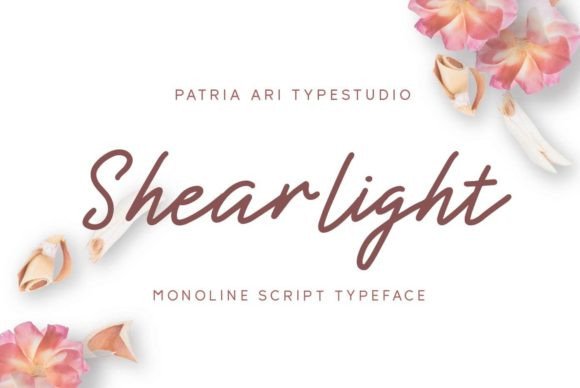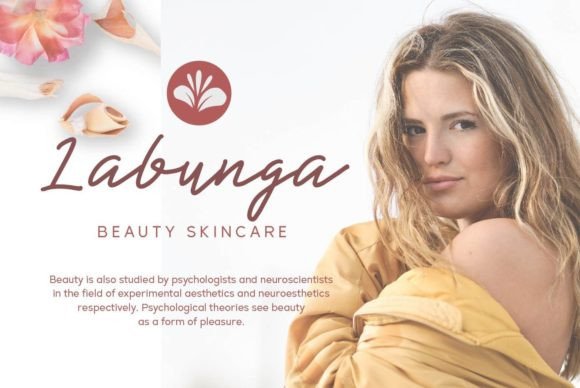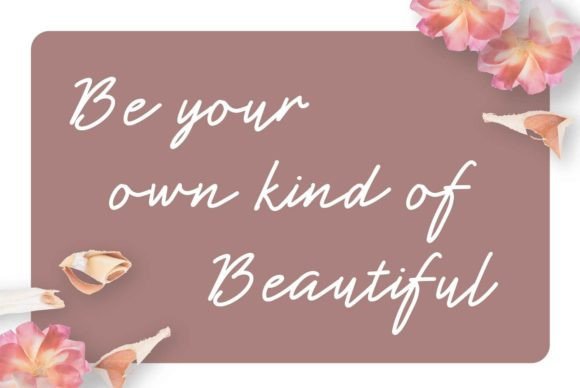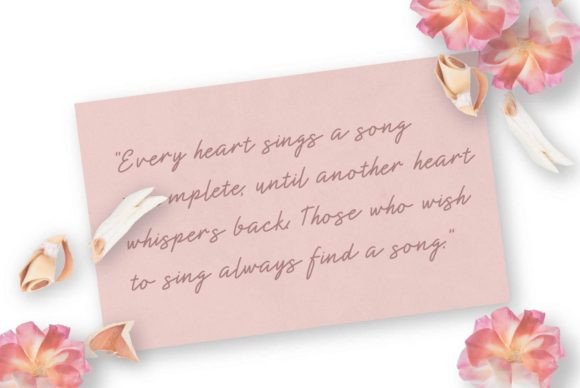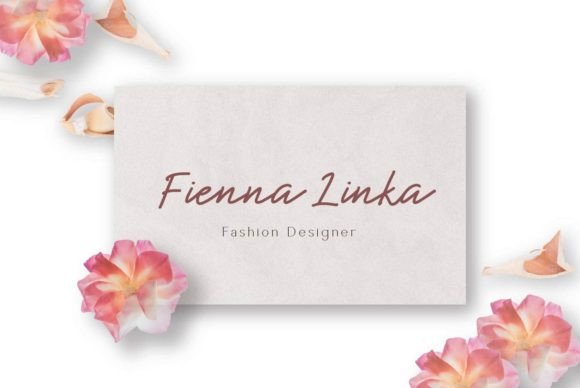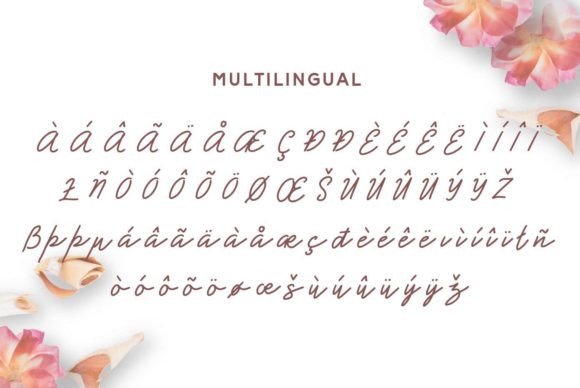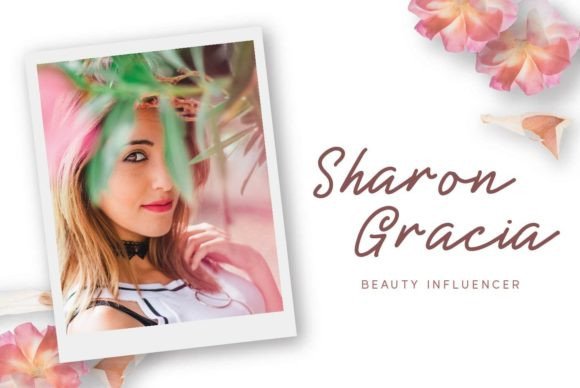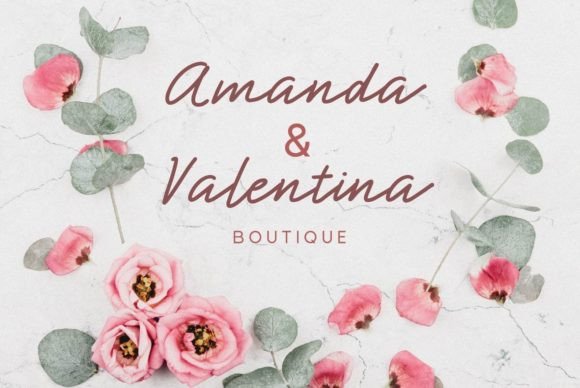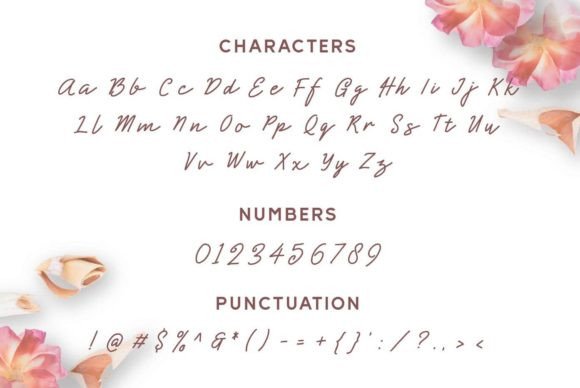
Shearlight Font
About Shearlight Font
“Shearlight” is a delicate and well-rounded handwritten font crafted to bring an authentic touch to crafty projects. This font is an excellent choice for a variety of creative endeavors, offering a delicate and genuine typography style. Whether you’re working on wedding invitations, birthday cards, personal branding, elegant logos, or any other creative project, “Shearlight” is designed to make your designs stand out with its delicate and well-rounded charm.
The handwritten and well-rounded nature of “Shearlight” makes it well-suited for projects that demand an authentic and personalized feel. The font’s delicate style adds an elegant touch to your text, making it a perfect choice when you want to convey sophistication and warmth in your designs.
The versatility of “Shearlight” allows it to adapt to different design contexts, making it suitable for a wide range of applications. Whether you’re creating elegant logos or crafting personalized invitations, this font adds a unique and standout quality to your designs.
Incorporating “Shearlight” into your creative projects lets you infuse them with a delicate and well-rounded aesthetic. Let this font be the key to making your designs memorable, as it adds an authentic and elegant touch that resonates with a diverse audience.
In summary, “Shearlight” is not just a font; it’s a design asset that brings delicacy and well-rounded charm to your creative endeavors. Its well-rounded handwritten style makes it perfect for a variety of projects, ensuring that your designs stand out with an authentic and sophisticated typography touch. Embrace the elegance of “Shearlight” confidently, and watch as it adds a delightful and unique character to your creations.